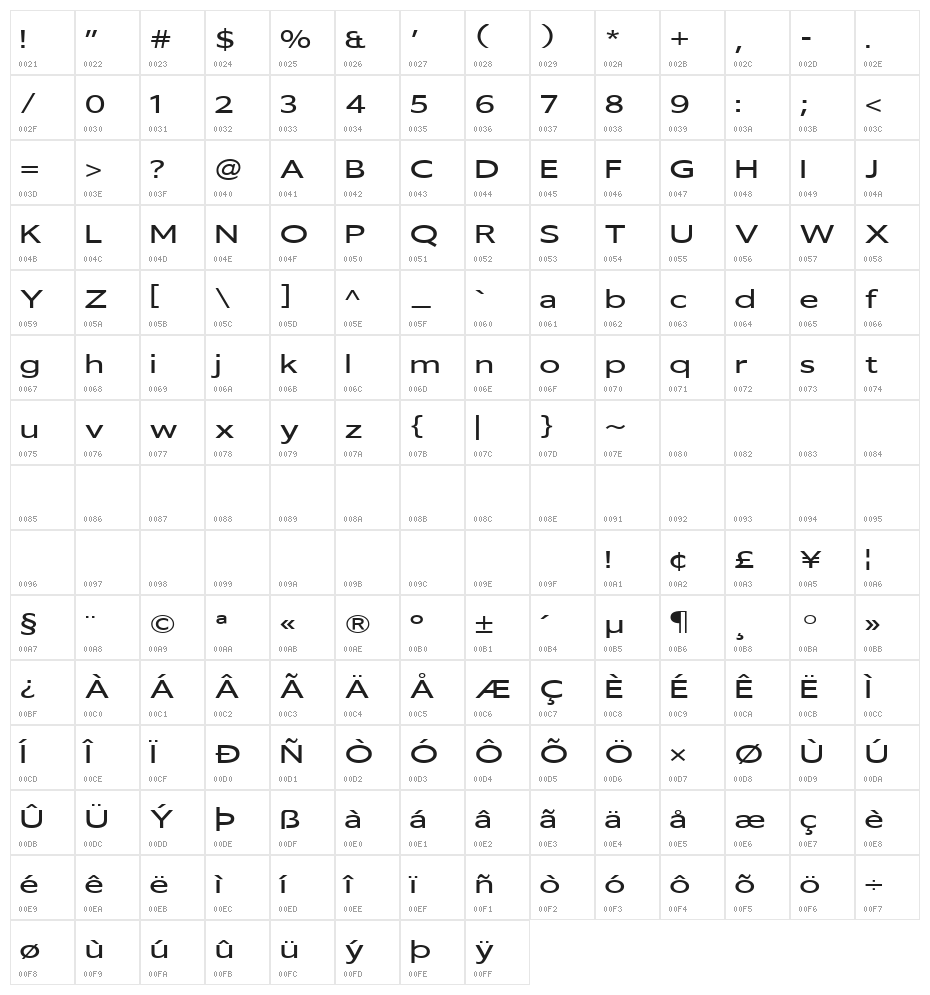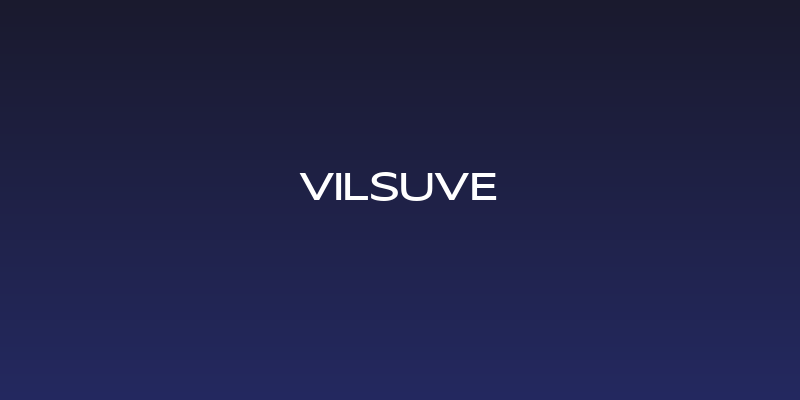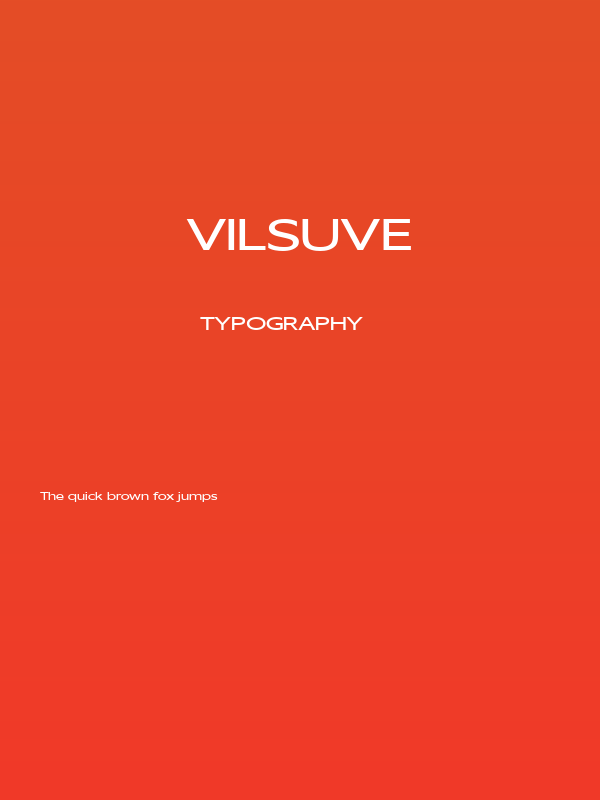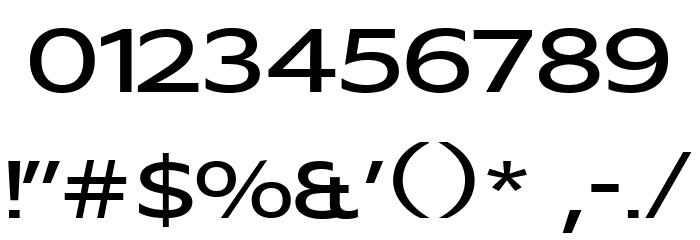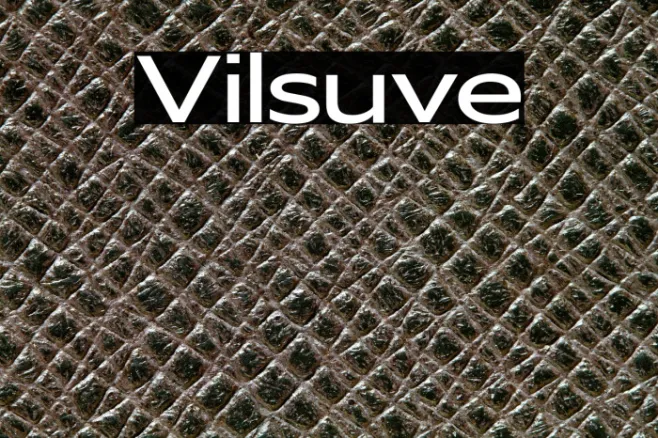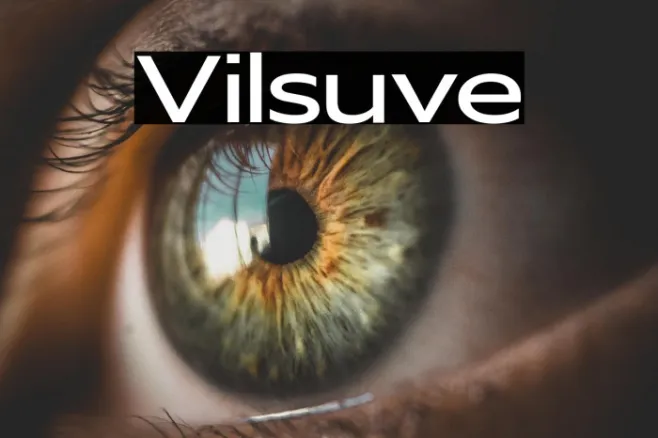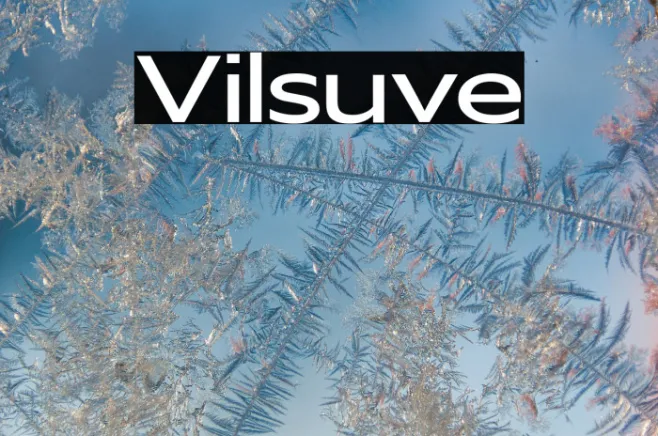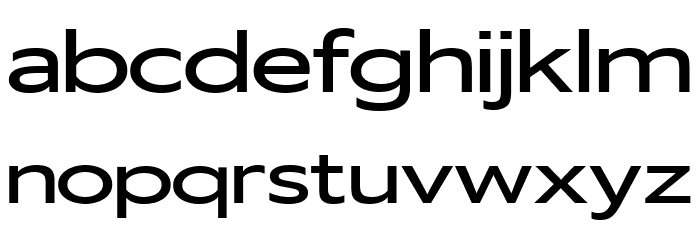
Vilsuve Font
Vilsuve Description
This font features a clean and modern sans-serif design with smooth curves and a uniform stroke width. The characters are well-proportioned, offering a harmonious and balanced appearance. The uppercase letters are bold and impactful, while the lowercase letters maintain a consistent style, ensuring readability. The numerals are clear and distinct, making them suitable for various applications. Special characters are elegantly integrated, maintaining the overall aesthetic. This font is versatile, suitable for both digital and print media, and can be used in a wide range of design projects.